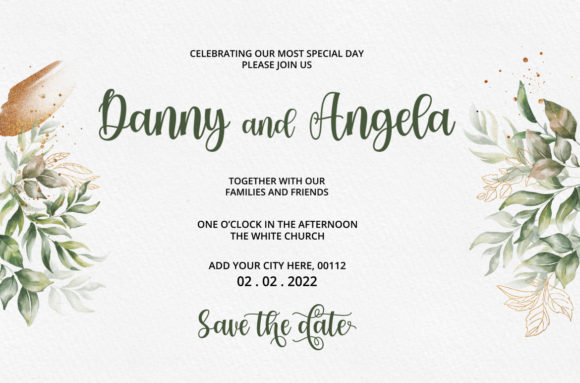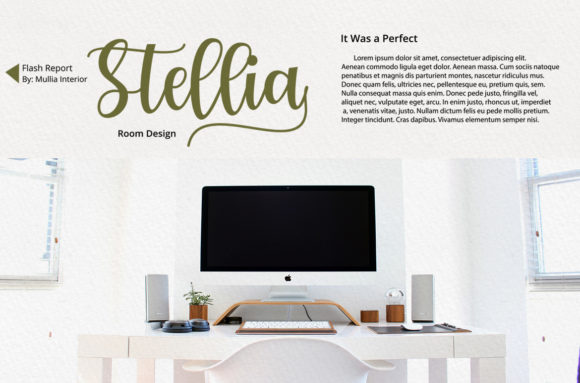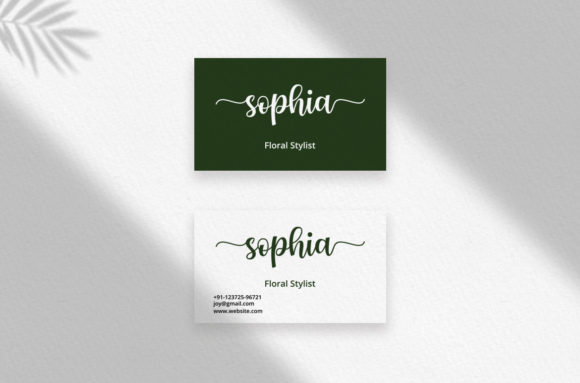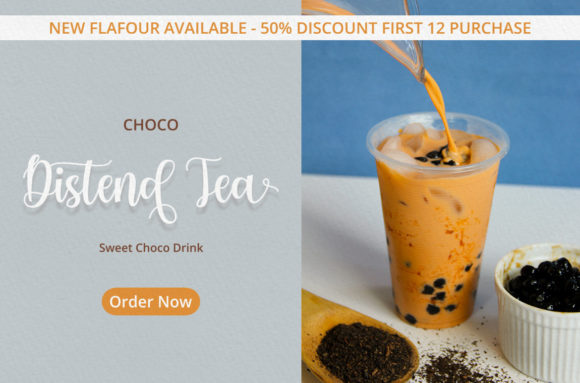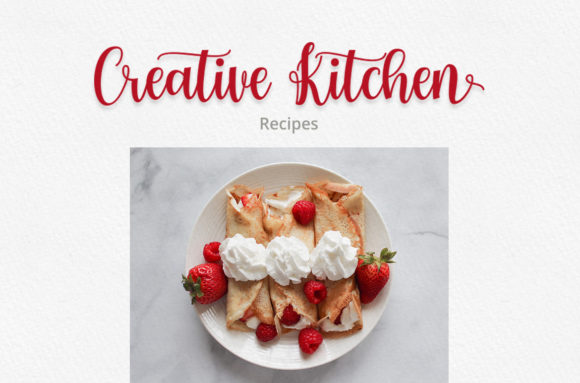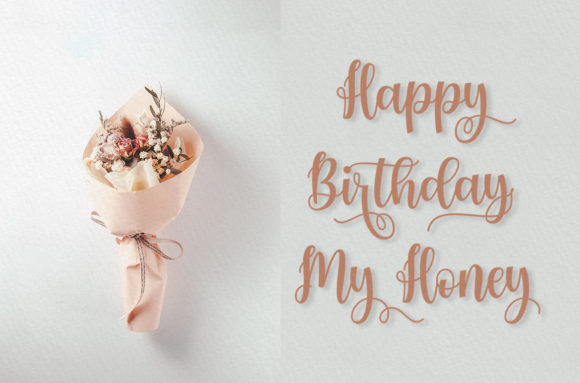
Introduction to Romance Script Font
Romance Script feels equally charming and elegant.
It looks stunning on wedding invitations, thank you cards, quotes, greeting cards, logos, business cards and every other design which needs a handwritten touch This font is PUA encoded which means you can access all of the glyphs and swashes with ease.
Key Features of Romance Script Font
Why Choose Romance Script Font?
Romance Script Font offers exceptional quality and versatility, making it a valuable addition to your design toolkit. Whether you’re creating for personal projects or commercial use, Romance Script Font delivers professional results.